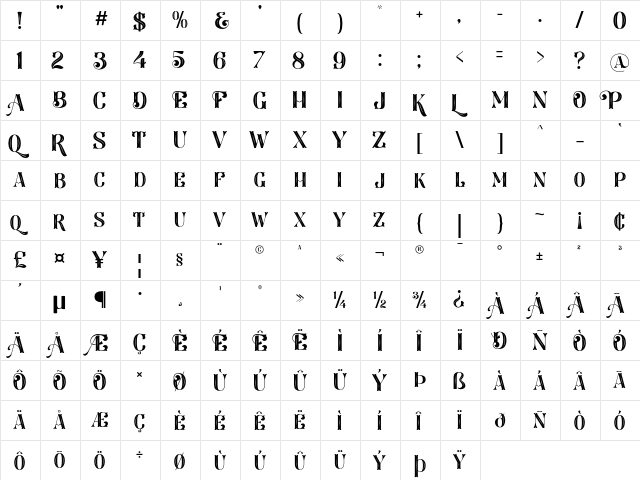
Larson Regular
| Designer | Neuron |
Design Context for Larson Typeface
Larson is a composed and adaptable typeface that performs quietly and consistently across a wide range of design contexts.